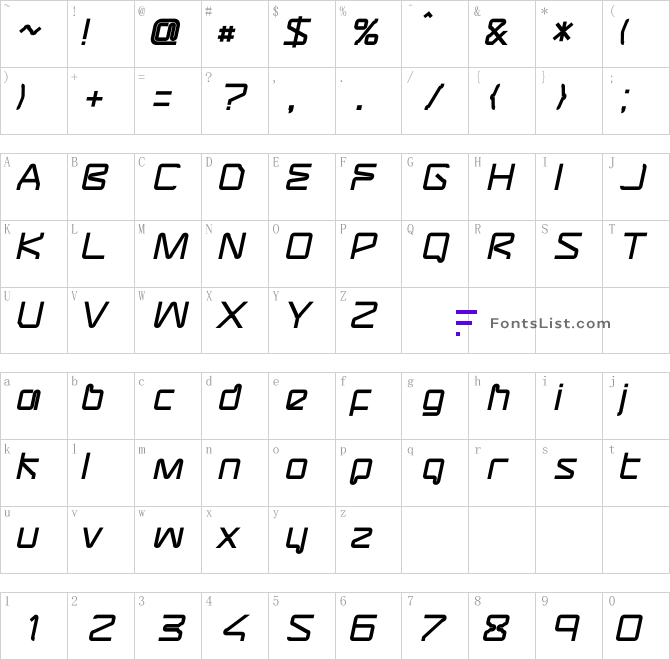
- Font Name:AssemblerBold Oblique
AssemblerBold-Oblique.ttf is a very beautiful artistic font, AssemblerBold-Oblique.ttf is widely used in the design and printing of various books and pictures,AssemblerBold-Oblique.ttf has a strong visual impact,AssemblerBold-Oblique.ttf is a commonly used font in newspapers, magazines and books, and is used in posters, e-commerce Poster design, store design, logo design, font design and other fields.AssemblerBold-Oblique.